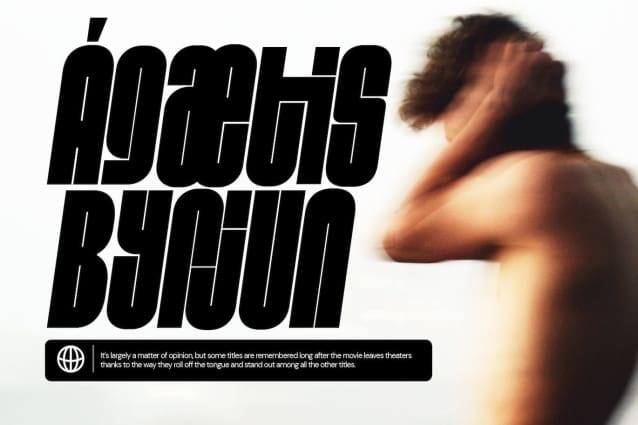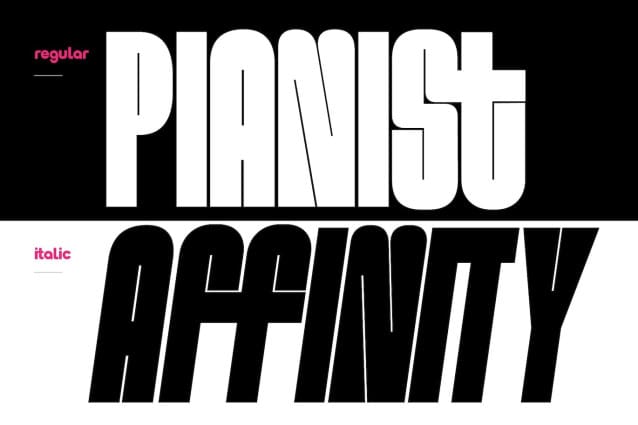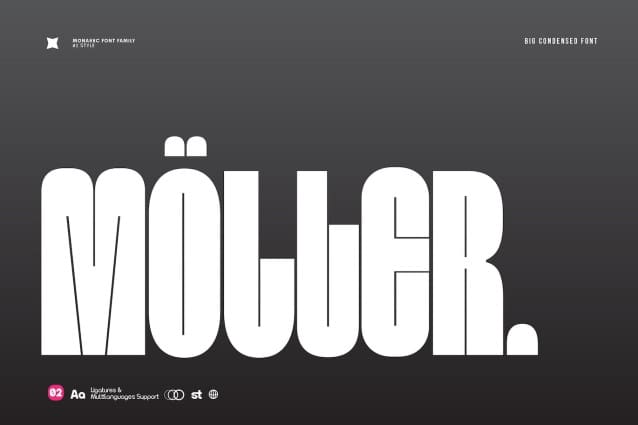
Moller Condensed Font
Moller Condensed Font, a strong but gentle character, with a happy and fresh theme, supported by 2 Style. Moller is able to meet your current needs when it comes to designing something big. Moller is a bold and unique display font. Masterfully designed to become a true favorite character, Moller is able to meet your current needs for designing something great. Its weight is greater for posters, social media, headlines, magazine titles, clothing and large print formats